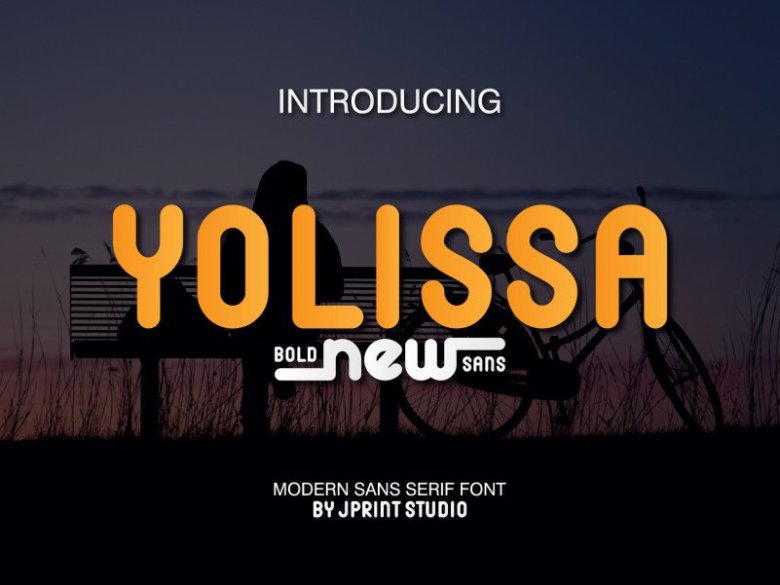
Yolissa Sans Serif Font
Yolissa Font is a uniquely hand-lettered sans-serif typeface that compliments and brings a unique touch to projects. This typeface maintains a structured approach, yet is able to convey a sense of friendliness and lightheartedness.
Yolissa is perfect for large or small copy, whether it is a title of a magazine or a page of paragraphs. It even supports multiple accents, so you can use RebStand with different languages!